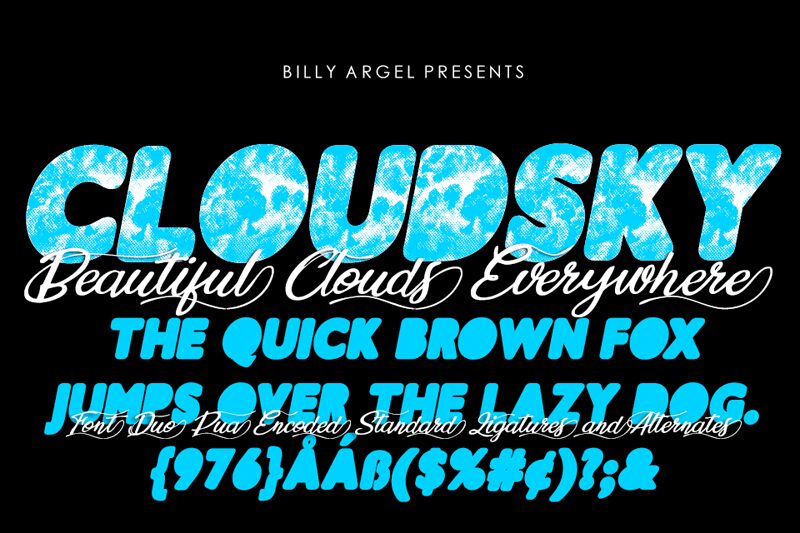
CLOUDSKY ITALIC PERSONAL USE Bold Italic
CLOUDSKY Bold Italic is an edgy and captivating display font by Billy Argel Fonts.
Its eroded style adds a unique touch to any project, making it perfect for album covers, movie titles, or rock band logos. The extra-bold weight allows for maximum impact, ensuring your design stands out from the crowd. Whether you're creating a vintage-inspired poster or a grunge-themed website, CLOUDSKY Bold Italic will bring a bold and dynamic element to your work.
Font duo, two layered fonts, bold, bold italic and script version.